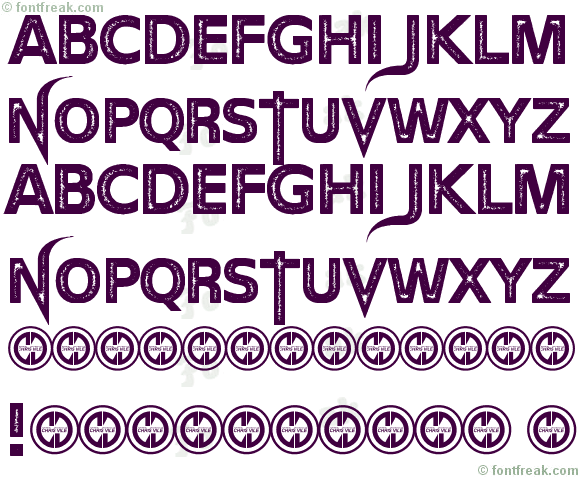
The Devil Net
The Devil Net font by Chris Vile is a striking display typeface that embodies a unique blend of boldness and creativity. Released in 2017, this freeware typeface features a distinctive visual style characterized by its rough, textured finish and angular forms. The stroke weight is consistent yet varied, providing an eye-catching contrast that enhances its overall visual appeal. The spacing is ample, allowing for readability while maintaining a dramatic presence, making it particularly effective for attention-grabbing designs. The decorative elements, including jagged edges and a slight flourish in certain letters, contribute to its edgy and rebellious character.
This font is ideal for a variety of specific use cases. It shines in creating eye-catching movie posters, where its bold aesthetics can evoke intrigue and excitement. Additionally, it is well-suited for promotional materials for music events or festivals, where a dynamic and energetic vibe is essential. The Devil Net font can also elevate restaurant menus, especially for establishments that wish to convey a modern yet gritty atmosphere. Furthermore, its unique style makes it a great choice for merchandise designs, such as t-shirts or stickers, where distinctiveness is key.
Target audiences for this font include graphic designers looking to make a statement in their projects, small business owners aiming to attract attention to their brands, and content creators seeking a memorable visual identity.
What sets The Devil Net apart is its ability to blend edginess with functionality, making it a versatile choice for anyone wanting to leave a lasting impression. Whether you’re designing a bold promotional piece or simply exploring creative options, The Devil Net font free download offers an exciting opportunity to infuse your work with personality and flair.